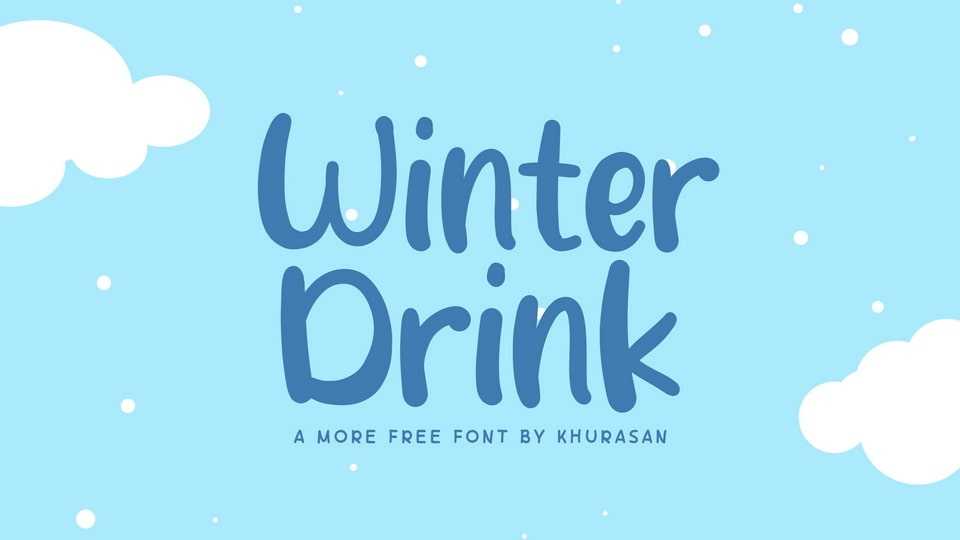
Download Winter Drink font, a cute and simple hand-lettered typeface that radiates charm and playfulness. With every stroke, the font captures the essence of carefree doodling, offering a delightful and endearing aesthetic that’s perfect for a wide range of design projects.